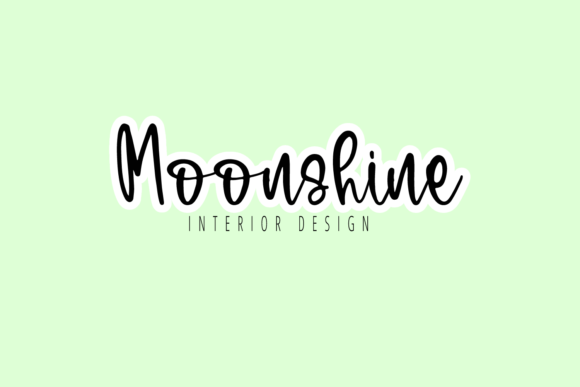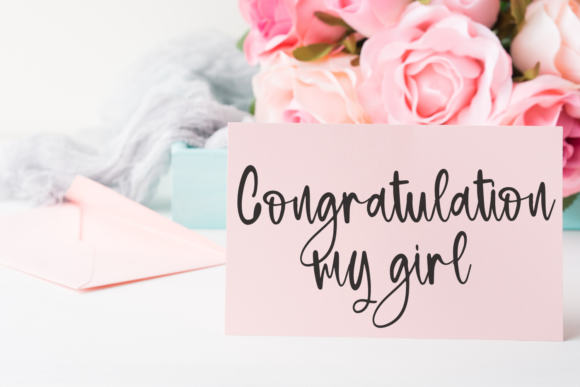
Greenlight Font
db-ku.com - Script & Handwritten -- Greenlight is a lightweight handwritten font that is perfectly suited for traditional media and the web. Its playfulness makes it a great choice for any creative project, be it inspirational wall posters or promoting your ideas and brand. It is recommended for crafters and graphic artists alike.